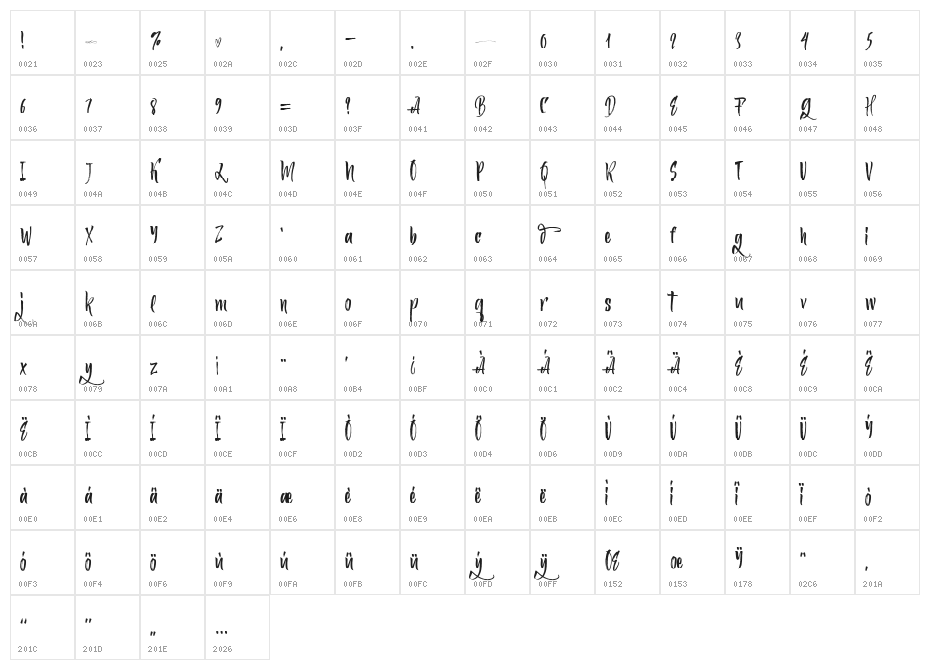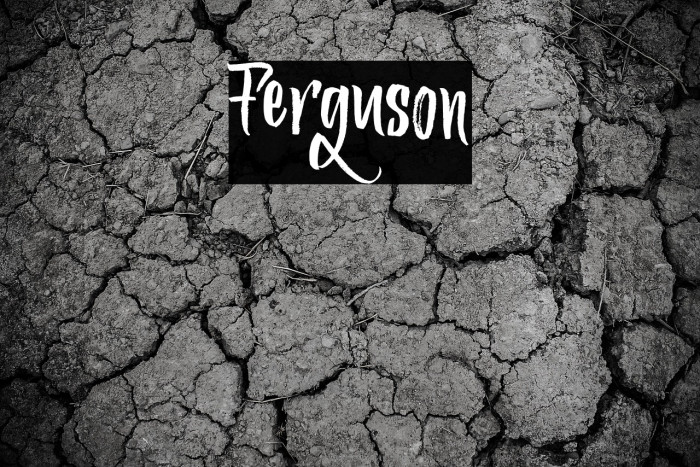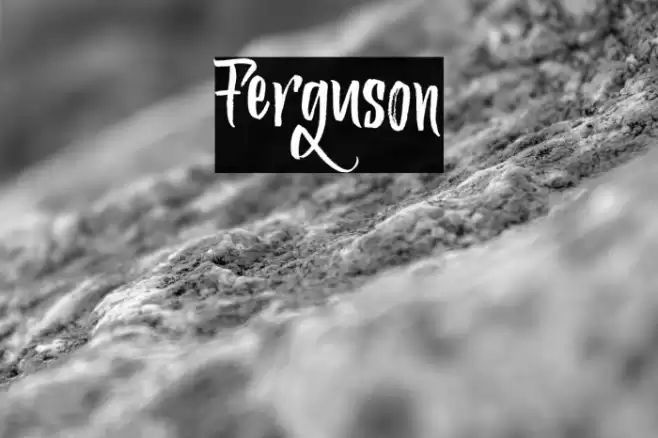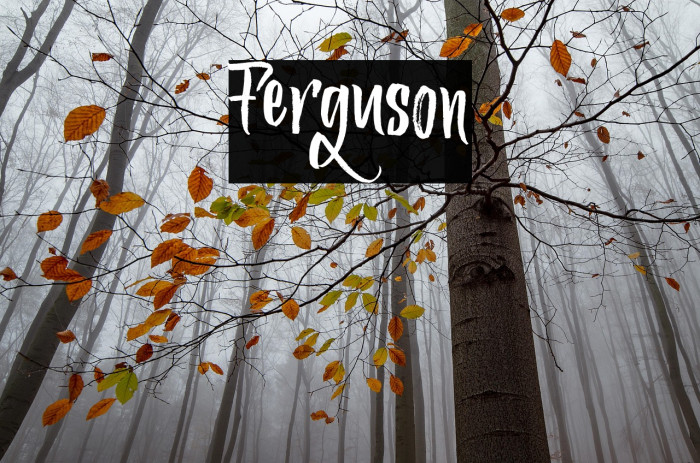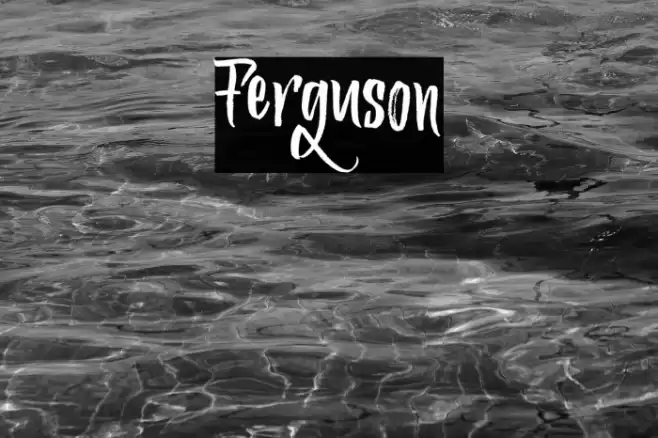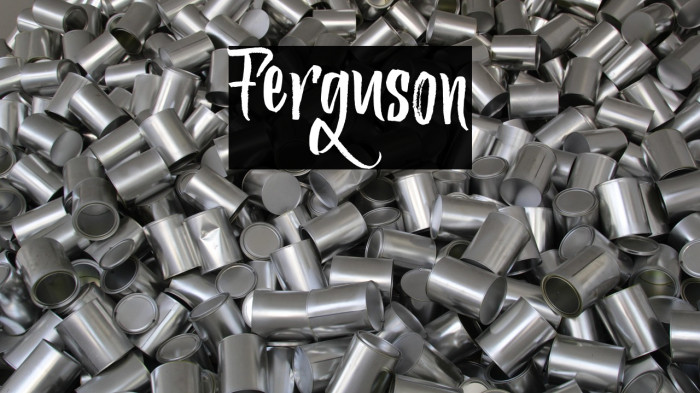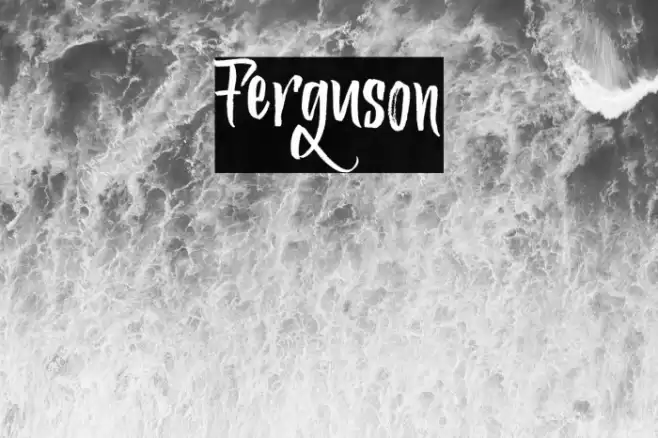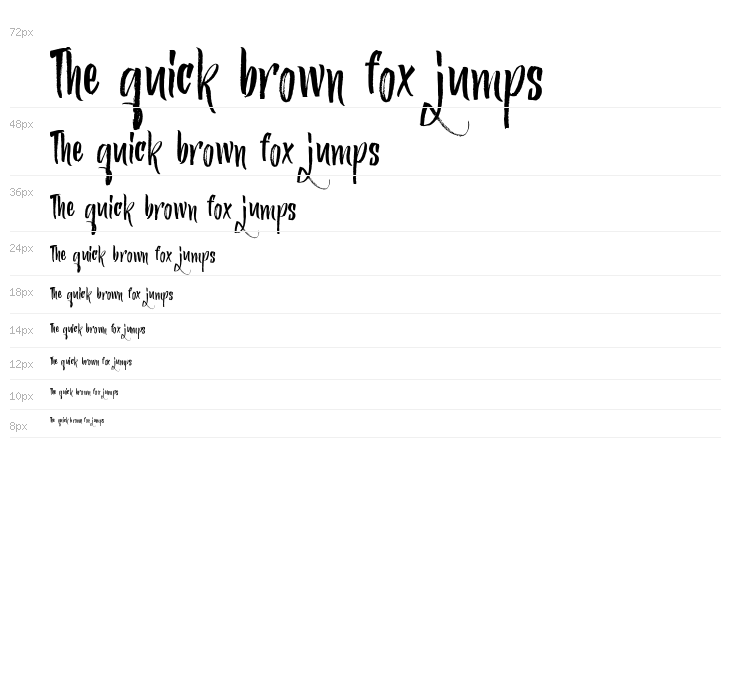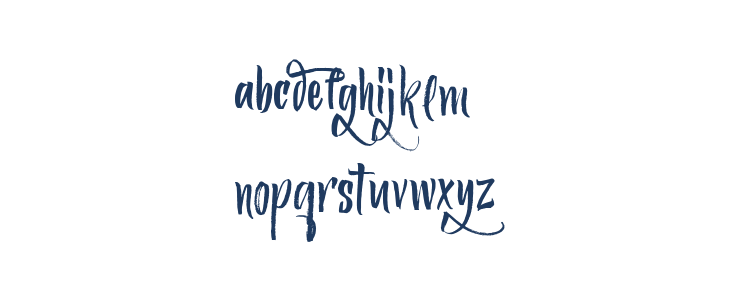
Ferguson Font
Ferguson Description
This font exudes a dynamic and artistic flair, characterized by its brush-like strokes and fluid, cursive style. The uppercase letters are bold and expressive, with sweeping lines and varying thickness that give a sense of movement and energy. The lowercase letters maintain this fluidity, with some characters featuring elegant loops and flourishes that add a touch of sophistication. The numbers are consistent with the overall style, maintaining the same brushstroke appearance. Special characters, such as the ampersand and percentage sign, are crafted with the same artistic touch, making them visually cohesive with the rest of the font. This font is ideal for projects that require a personal, handcrafted feel, such as invitations, branding, and artistic posters.